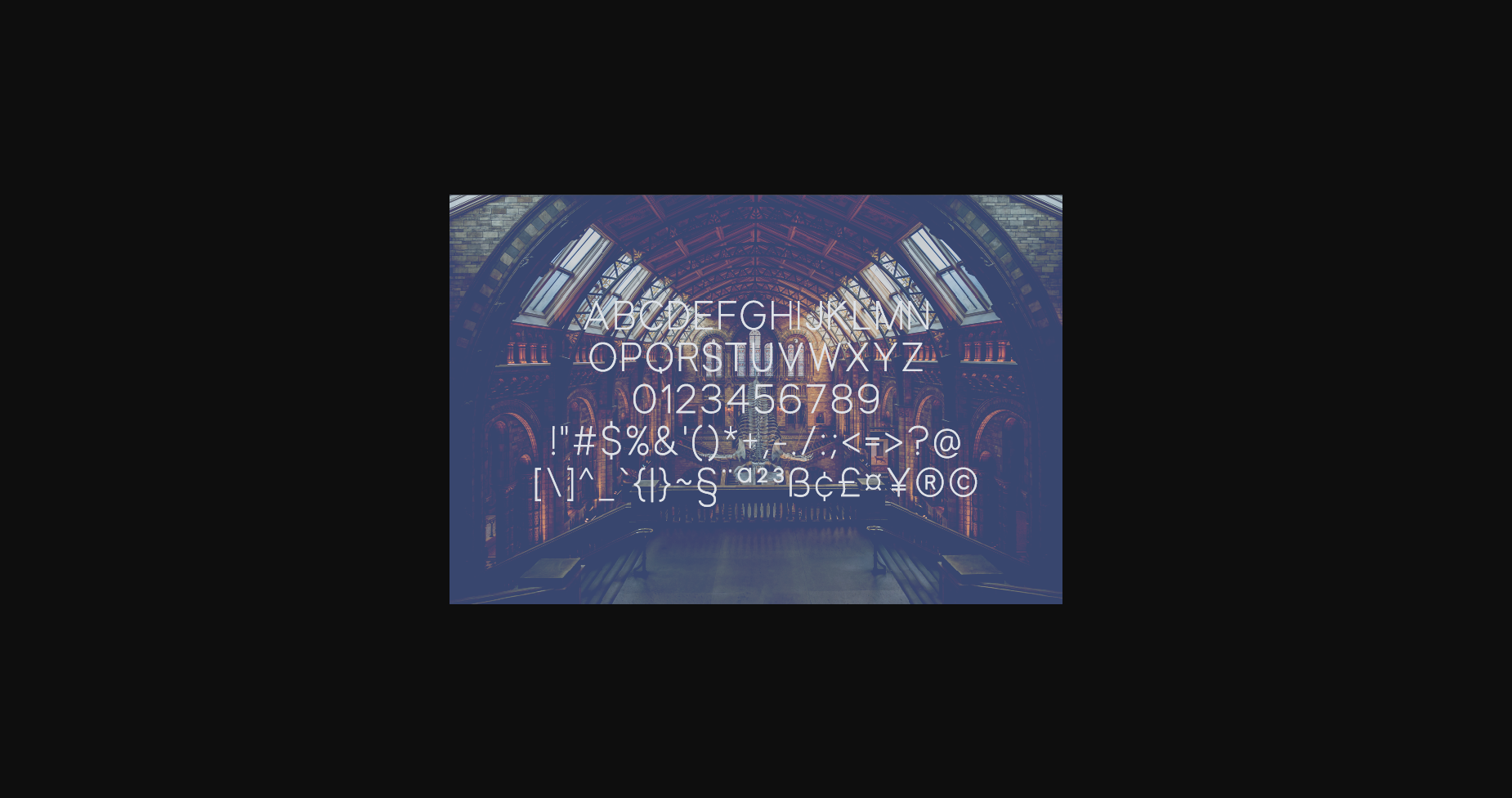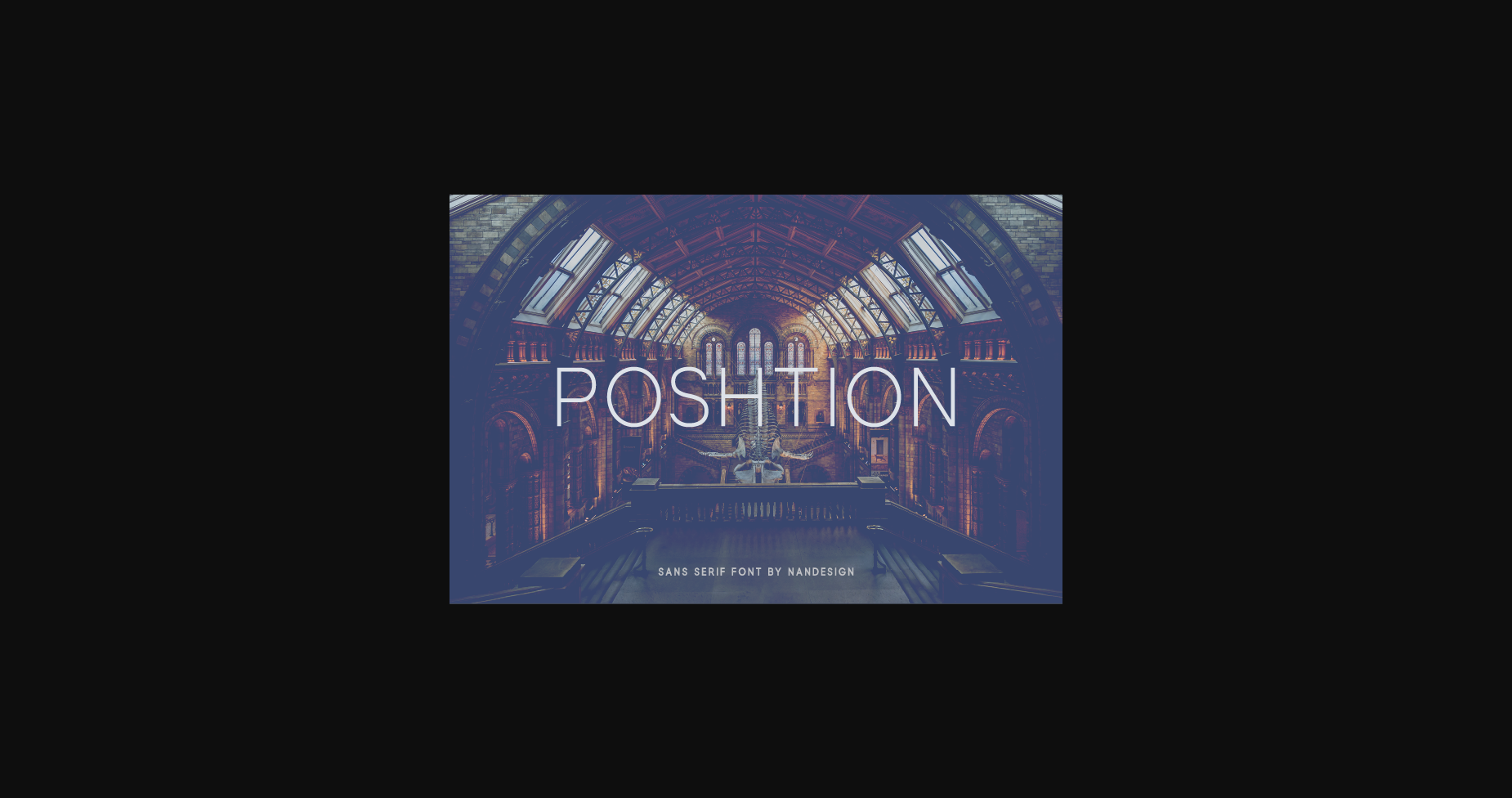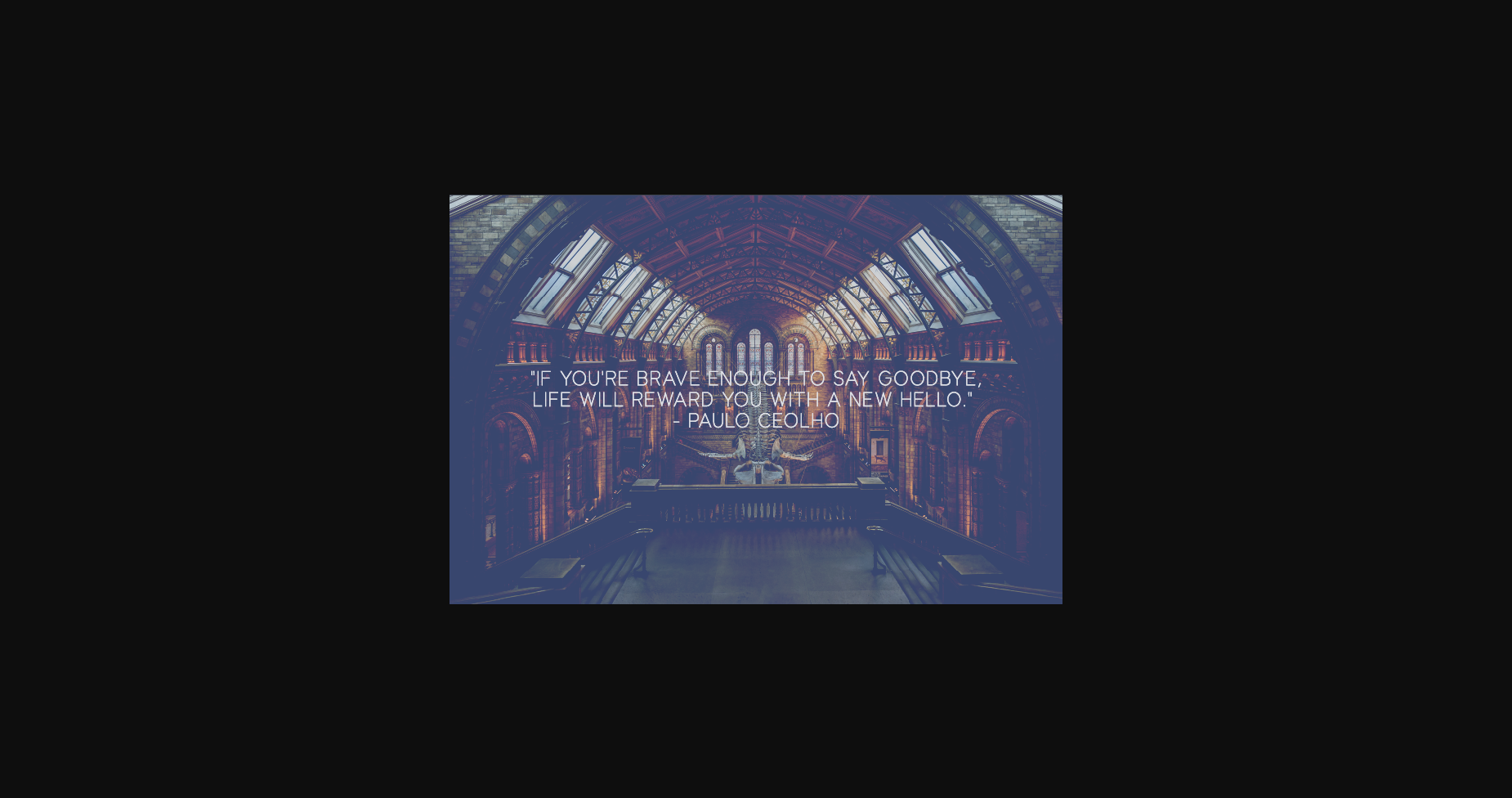
About Poshtion Font
Poshtion is a thin lettered and simple sans serif font.
Use it to create headings, gorgeous invitations, stunning logos, and various other designs that require a futuristic touch.